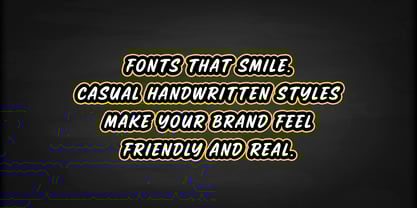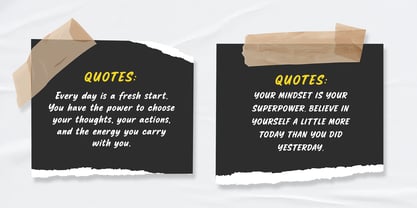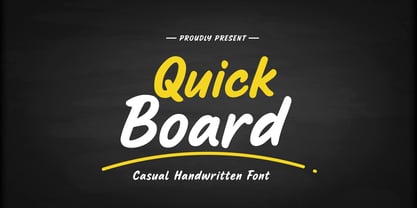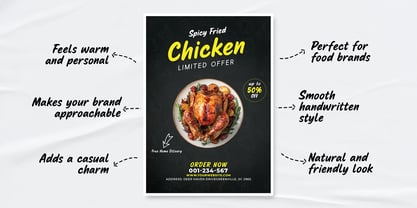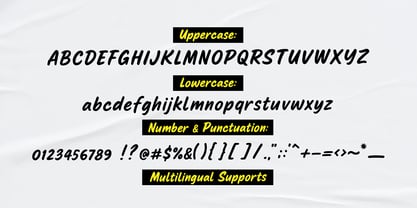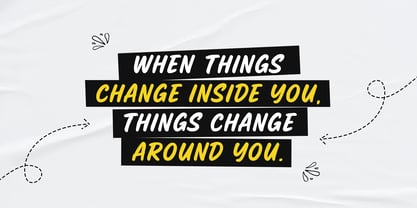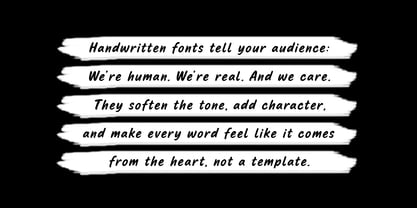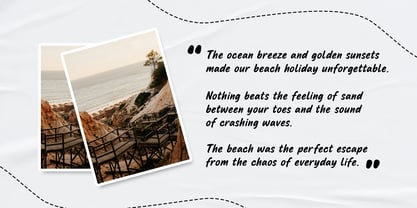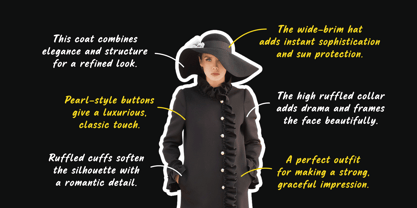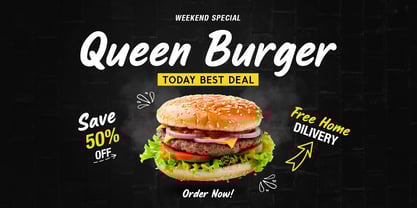
Quick Board
by Syauqi Studio
The Quick Board Font Family was designed by Muhammad Asroful Umam and published by Syauqi Studio. Quick Board contains 1 styles. More about this family
Quick Board – Casual Handwritten Font
Meet Quick Board, a casual handwritten font that brings a splash of spontaneity and warmth to your designs. Inspired by quick notes, chalkboard scribbles, and everyday handwriting, this typeface captures the charm of imperfect strokes with a smooth, natural rhythm.
Whether you’re designing for lifestyle brands, food packaging, social media quotes, planner pages, or handwritten-style logos, Quick Board delivers that human touch that feels both personal and authentic.
✔ Smooth & Natural Flow
✔ Casual Yet Stylish Personality
✔ Perfect for Branding, Stickers, Notes, and More
From friendly headlines to heartfelt messages, Quick Board turns simple words into meaningful expressions.
Features:
- Uppercase & Lowercase
- Number & Punctuation
- Multilingual Support
Designers: Muhammad Asroful Umam
Foundry: Syauqi Studio